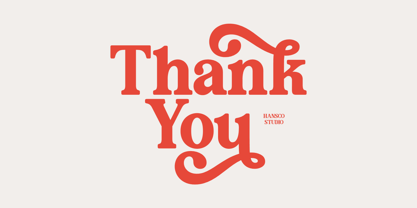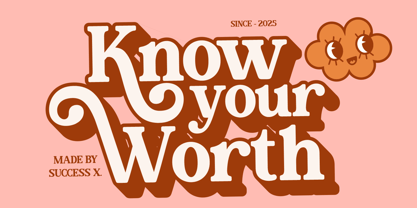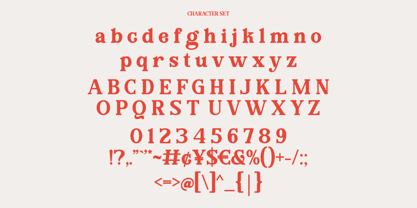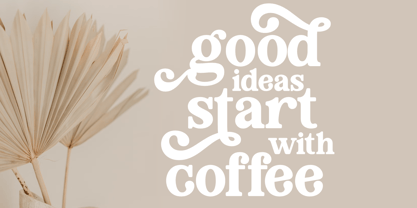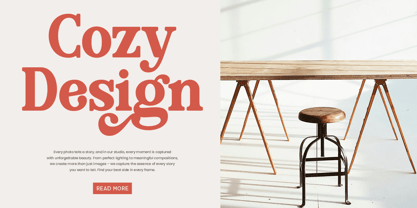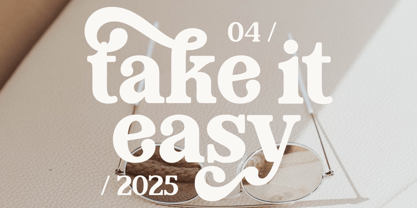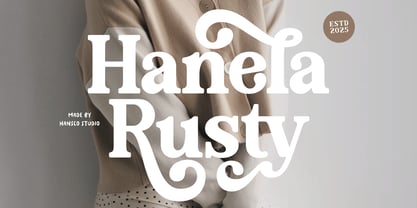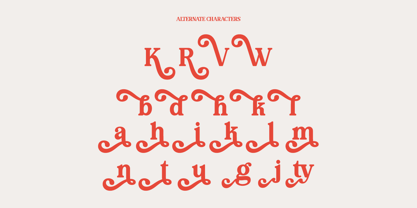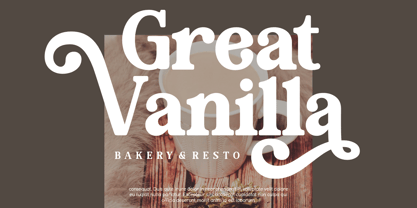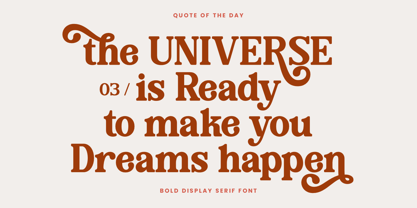
Hanela Rusty
by HansCo
The Hanela Rusty Font Family was designed by Burhan Afif and published by HansCo. Hanela Rusty contains 1 styles. More about this family
Hanela Rusty Font is a simple & bold retro vintage serif font style. You will also get additional alternative swash character fonts that make your design projects amazing. Use this display font to add that special retro vintage touch to any design idea you can think of!. Equipped with all complete characters ranging from uppercase letters, lowercase letters, numbers, punctuation marks and multi-lingual support, this font is ready to be used in any project. Very suitable for logotype, Stickers, Packaging design, Cricut Project, headlines, brand identity, t shirt or apparel industry, posters, magazines, books, YouTube, Instagram, websites, or any of your creative design projects.
Designers: Burhan Afif
Foundry: HansCo